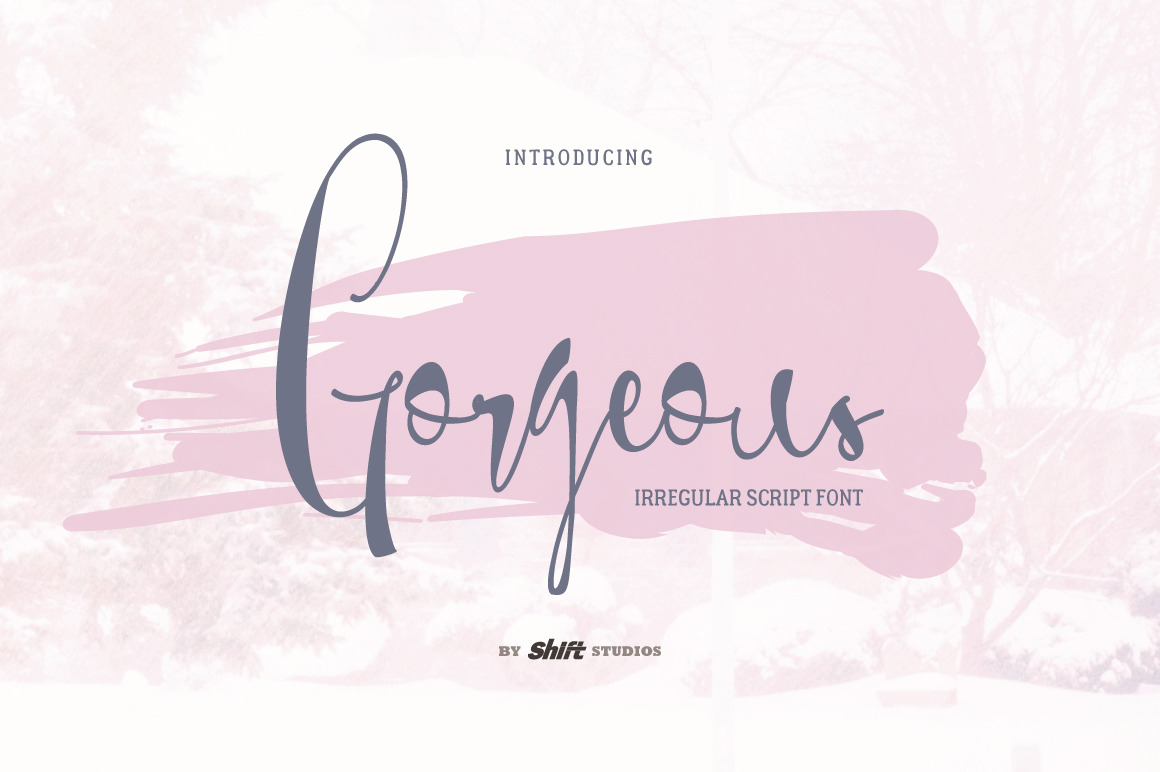
Gorgeous Typeface
Gorgeous font is an irregular script style and unique handwriting font. This script font specifically established for real abstract handwriting looks and perfect also for A-Z signature in your special branding.
Perfect for displays, headers, invitations, blogs, poster and so much more, Gorgeous will become a bouncy essential in your font collection!